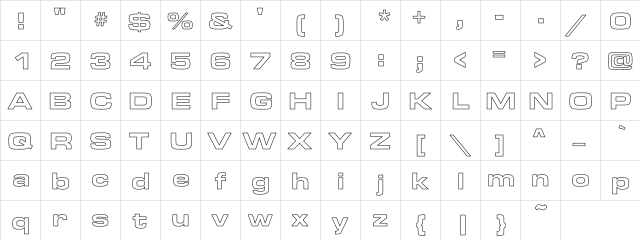
Stafford Hollow Regular
Design Context for Stafford Hollow Typeface
Stafford Hollow offers clean, dependable letterforms without strong stylistic allegiance, making it a practical choice for designers who need flexibility.
Pro Tip: Use Stafford Hollow in both headline and body roles to test its range before committing to a single application.